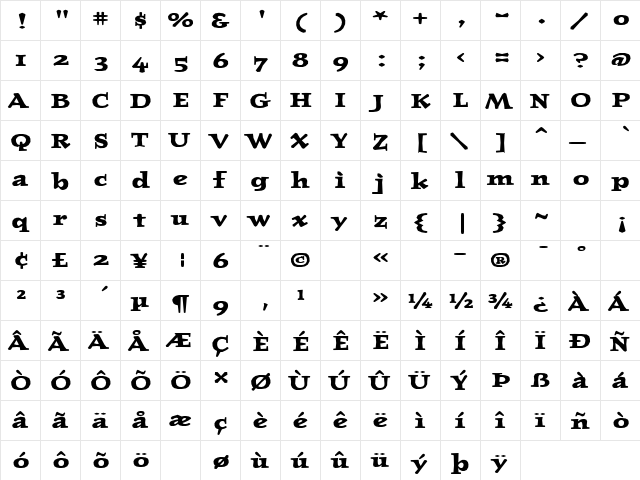
JournalUltraBoldOldstyle Bold
Design Context for JournalUltraBoldOldstyle Typeface
JournalUltraBoldOldstyle brings classic typographic sensibility to the table — its serifs and measured letterforms reflect centuries of print heritage. Its bold stroke weight gives it real presence on the page.